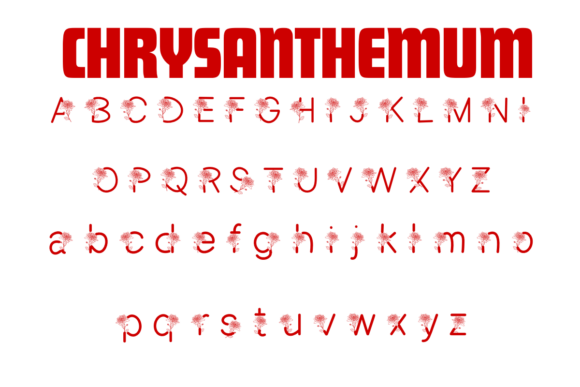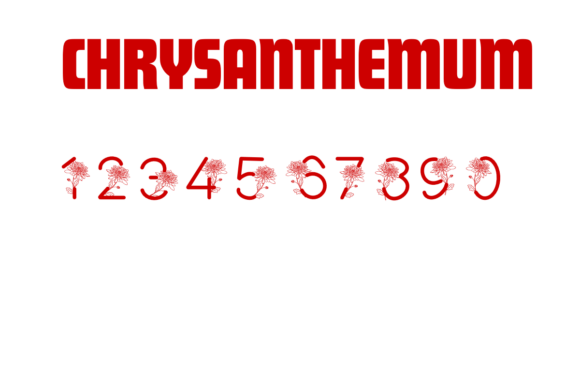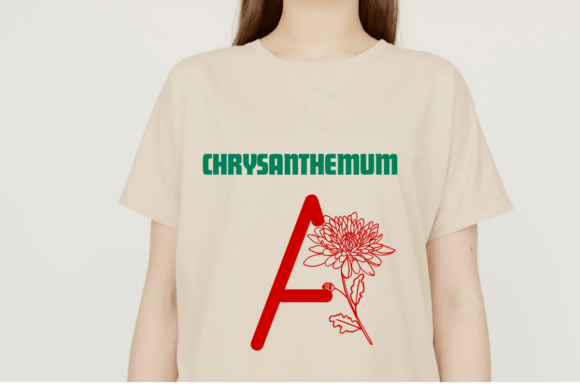
Chrysanthemum Font
Chrysanthemum is a charming decorative font inspired by nature’s elegance. Featuring bold, clean letterforms accompanied by a blooming chrysanthemum illustration, this font radiates a fresh and organic feel. It’s ideal for eco-conscious brands, packaging design, floral shops, and seasonal projects that call for a botanical touch.